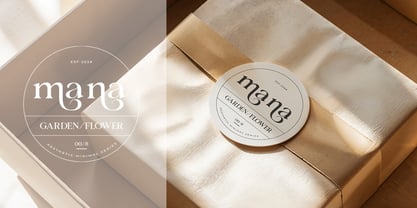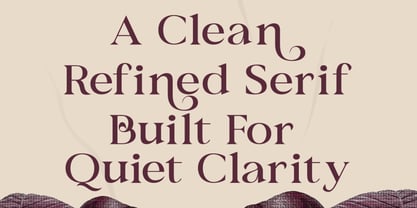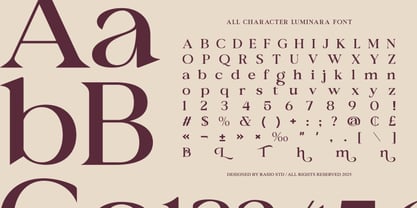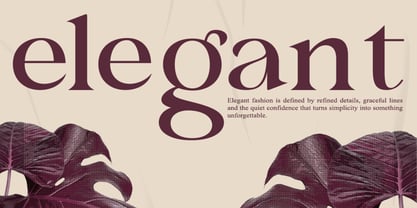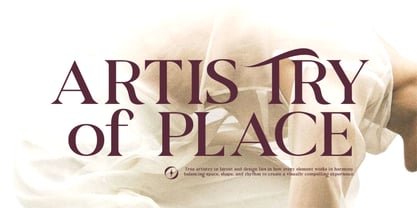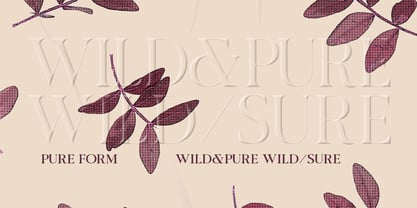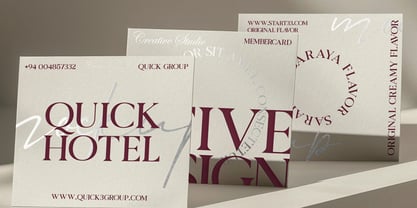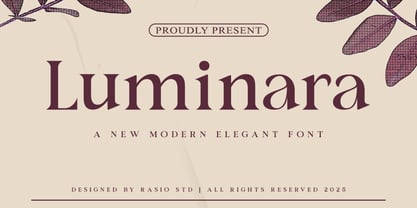
Luminara
von Rasio Studio
Die Schriftfamilie Luminara wurde von Fajar Indra entworfen und von Rasio Studio veröffentlicht. Luminara enthält 1 Stile. Mehr über diese Familie
Luminara is a refined and elegant serif font designed for timeless sophistication and visual harmony. With its graceful curves, tapered serifs, and high contrast strokes, this typeface adds a luxurious touch to any layout. Luminara features a complete set of uppercase and lowercase characters, numerals, punctuation, and multilingual support. Ideal for designers who appreciate clarity with a stylish twist, this font elevates both editorial and branding visuals. Luminara is a refined and elegant serif font designed for timeless sophistication and visual harmony. With its graceful curves, tapered serifs, and high contrast strokes, this typeface adds a luxurious touch to any layout. Luminara features a complete set of uppercase and lowercase characters, numerals, punctuation, and multilingual support. Ideal for designers who appreciate clarity with a stylish twist, this font elevates both editorial and branding visuals.
Designer: Fajar Indra
Aktuelle Foundry: Rasio Studio